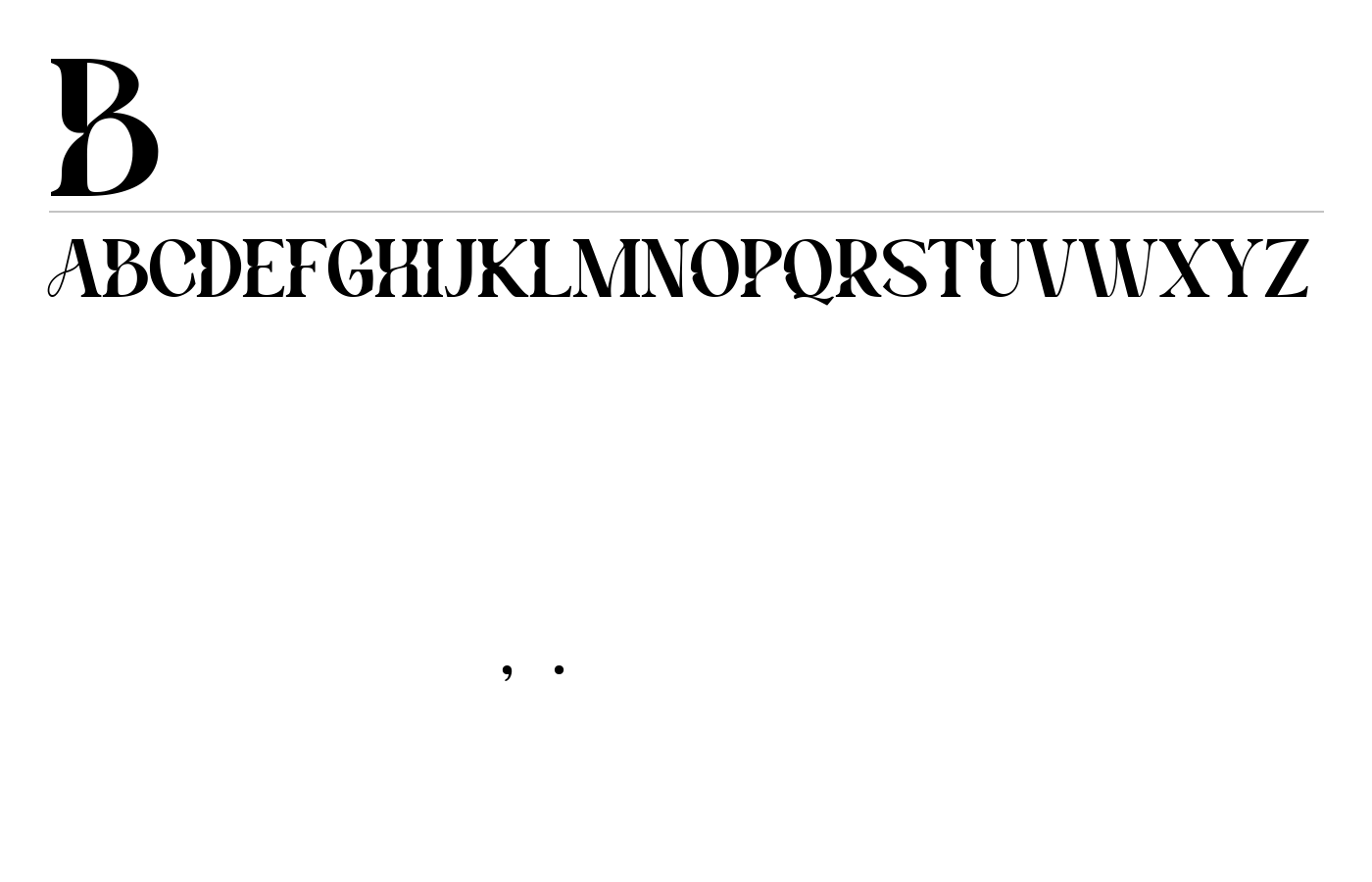
Benogi is a stylish serif font with a high contrast between thick and thin strokes, featuring elegant, sharp serifs that give it a refined and luxurious feel. Its tall, narrow letterforms and unique decorative details create a sophisticated, modern look that works beautifully for branding, editorial headlines, and fashion-related designs. This font is perfect for projects seeking a blend of classic elegance and contemporary flair.
Benogi Font